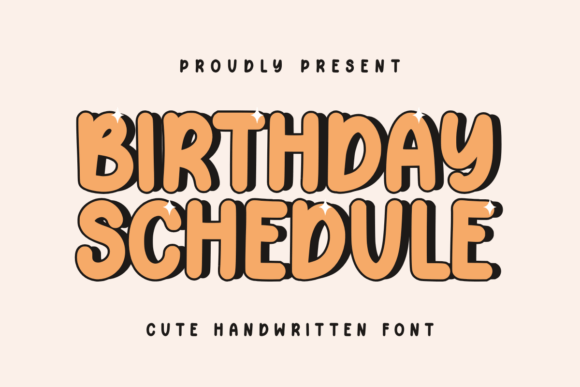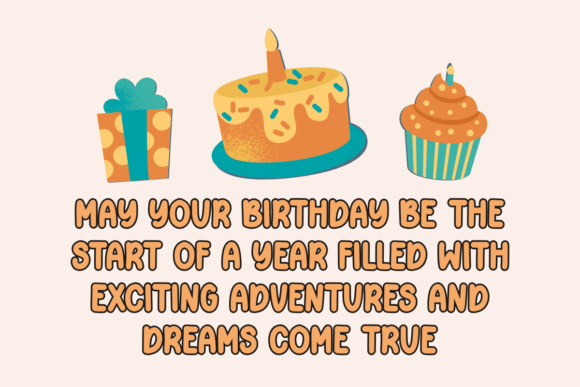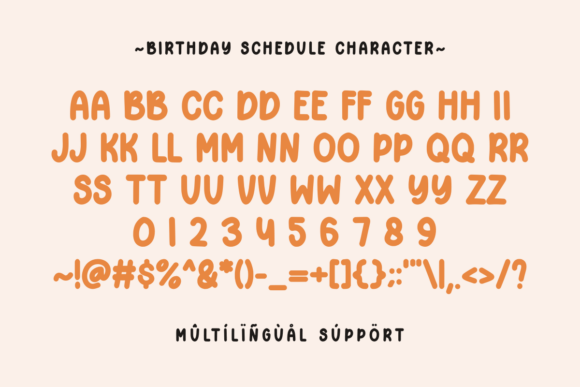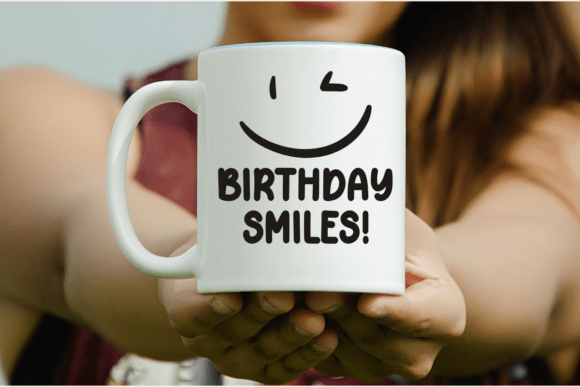
Birthday Schedule Font
Birthday Schedule is a cute and playful handwriting font, perfect for planners, stickers, cards, quotes, and craft projects. Ideal for creative moms who love DIY, journaling, and Cricut crafts!